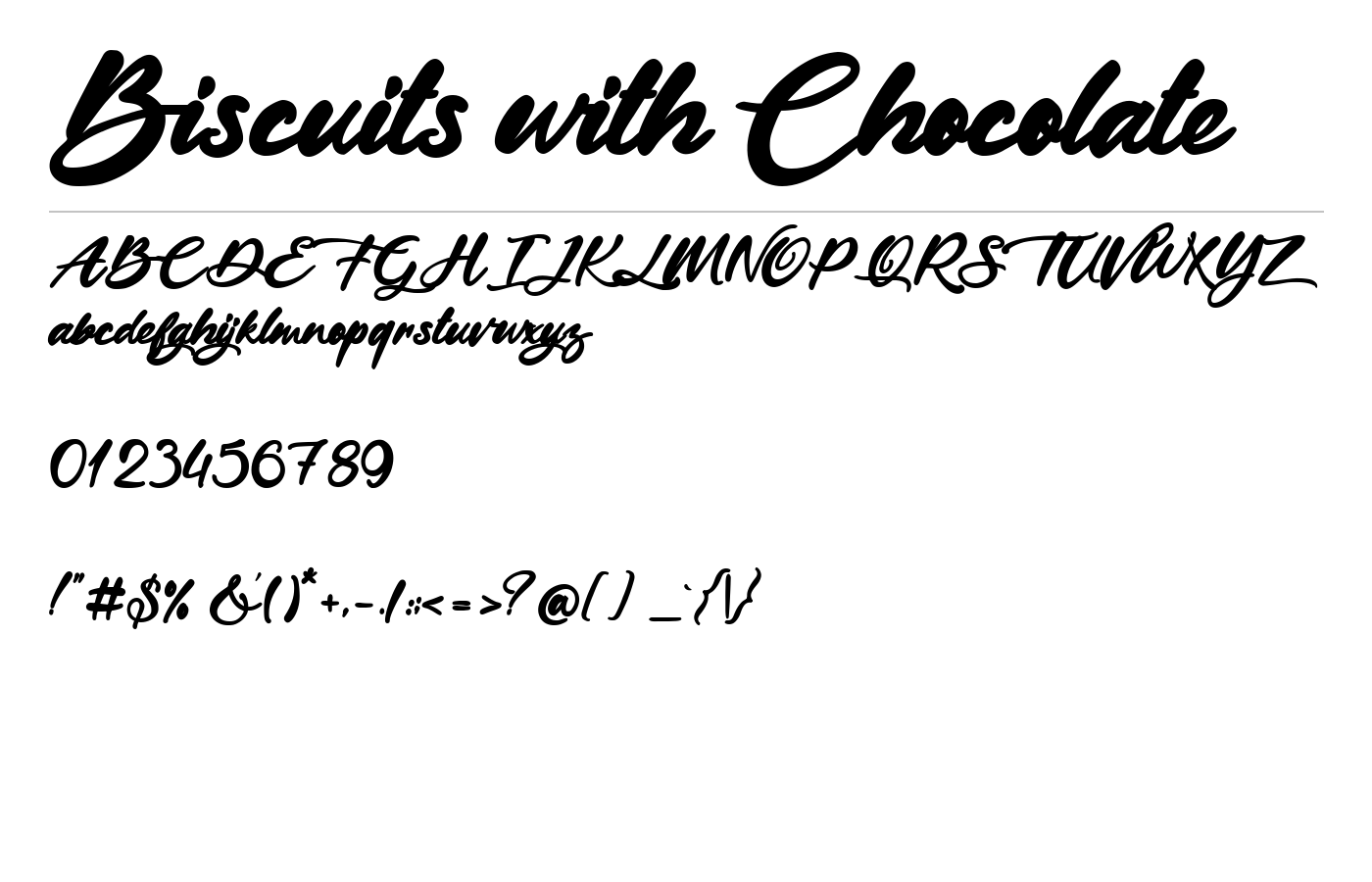
Biscuits with Chocolate is a bold, cursive script font that exudes warmth and a playful charm with its smooth, flowing letterforms and varied stroke thickness. Its energetic personality and informal style make it perfect for branding, packaging, and creative projects that aim to feel friendly and inviting. This font shines in headlines and logos where a personal, handwritten touch is desired.
Biscuits with Chocolate Font
About Biscuits with Chocolate Font
| Font family | Biscuits with Chocolate Font |
| Designer | Octotype |